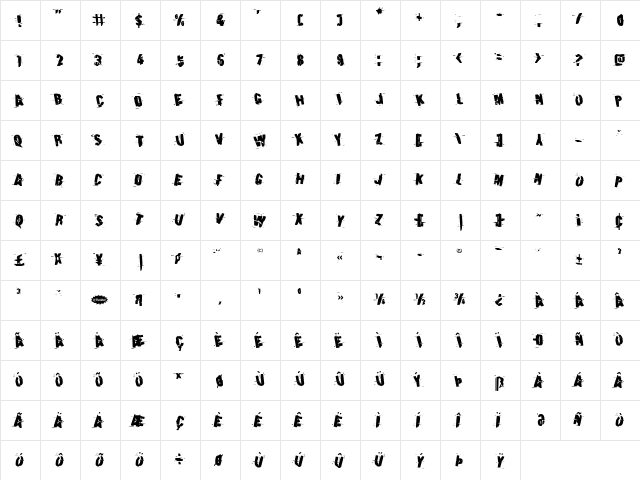
Earthshake Rotated Regular
Design Context for Earthshake Rotated Typeface
Earthshake Rotated is a composed and adaptable typeface that performs quietly and consistently across a wide range of design contexts.